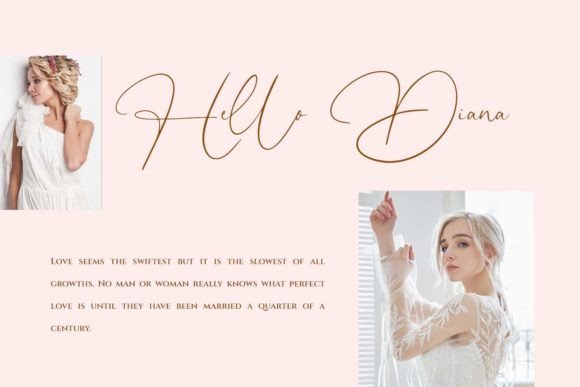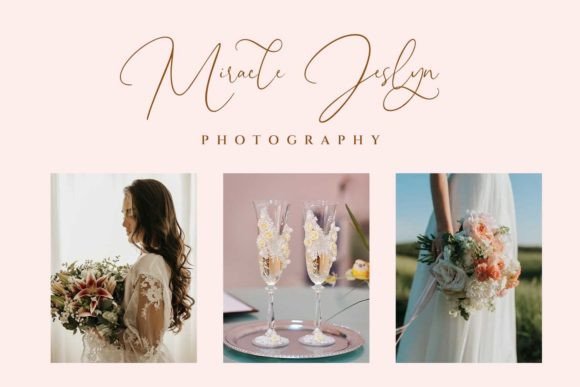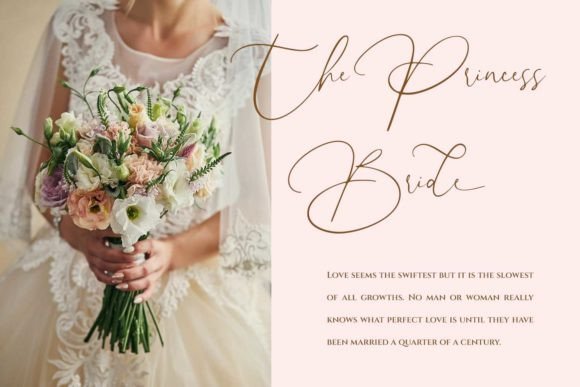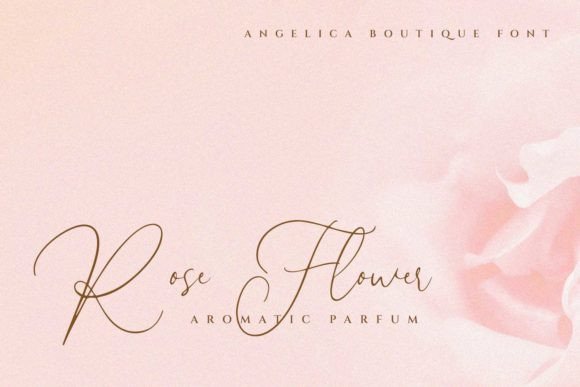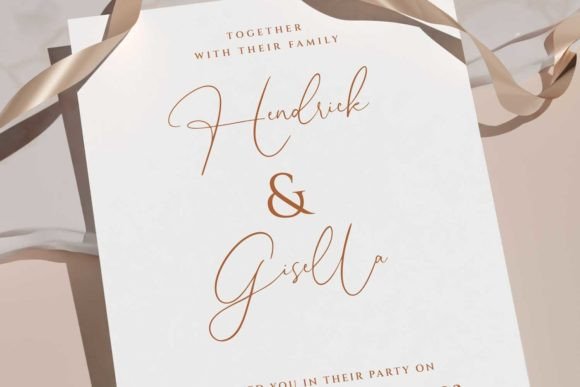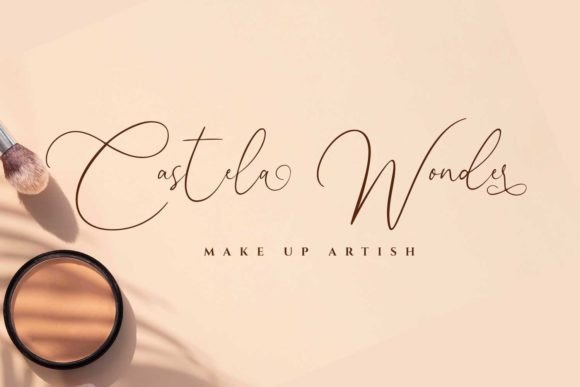
Introducing Angelica Boutique Font: Elevate Your Designs with Elegance and Sophistication
In the world of typography, few fonts capture the essence of luxury and femininity as effortlessly as Angelica Boutique. This delicate and elegant script font is designed to bring a touch of grace and sophistication to any design, making it perfect for wedding invitations, branding, and upscale projects. With its exquisite letterforms and flowing curves, Angelica Boutique is sure to add a touch of refinement and charm to your creations.
The Beauty of Angelica Boutique
Angelica Boutique is more than just a font – it’s an experience. Its intricate details and elegant strokes evoke a sense of high-end quality, making it ideal for designs that require a touch of sophistication. Whether you’re creating wedding invitations, luxury branding, or high-end packaging, Angelica Boutique is the perfect choice. Its unique blend of classic and modern elements ensures that your designs stand out from the crowd, while its feminine charm adds a touch of warmth and personality.
Key Features of Angelica Boutique Font
- Delicate and Elegant: Angelica Boutique boasts a delicate and elegant design, perfect for creating sophisticated and refined designs.
- Exquisite Letterforms: Each letterform is carefully crafted to ensure a high level of detail and precision, making it perfect for large and small designs alike.
- Flowing Curves: The font’s flowing curves add a touch of luxury and femininity, making it ideal for wedding invitations, branding, and upscale projects.
- Versatile: Angelica Boutique is versatile and can be used for a wide range of design applications, from digital to print.
Perfect for Wedding Invitations and Branding
Angelica Boutique is a popular choice for wedding invitations and branding due to its elegant and sophisticated design. The font’s delicate curves and exquisite letterforms make it perfect for creating beautiful and memorable wedding invitations, while its luxurious feel makes it ideal for high-end branding and packaging. Whether you’re a designer or a crafty DIYer, Angelica Boutique is sure to elevate your designs and add a touch of refinement and charm.
Tips for Using Angelica Boutique Font
- Pair with Neutrals: Pair Angelica Boutique with neutral colors like white, cream, or light gray to create a clean and sophisticated look.
- Use for Headlines: Use Angelica Boutique for headlines and titles to add a touch of elegance and sophistication.
- Mix with Other Fonts: Mix Angelica Boutique with other fonts to create a unique and visually appealing design.
In conclusion, Angelica Boutique is a stunning script font that is sure to elevate your designs and add a touch of elegance and sophistication. With its exquisite letterforms, flowing curves, and luxurious feel, it’s perfect for wedding invitations, branding, and upscale projects. Whether you’re a designer or a crafty DIYer, Angelica Boutique is a must-have font that will take your designs to the next level.